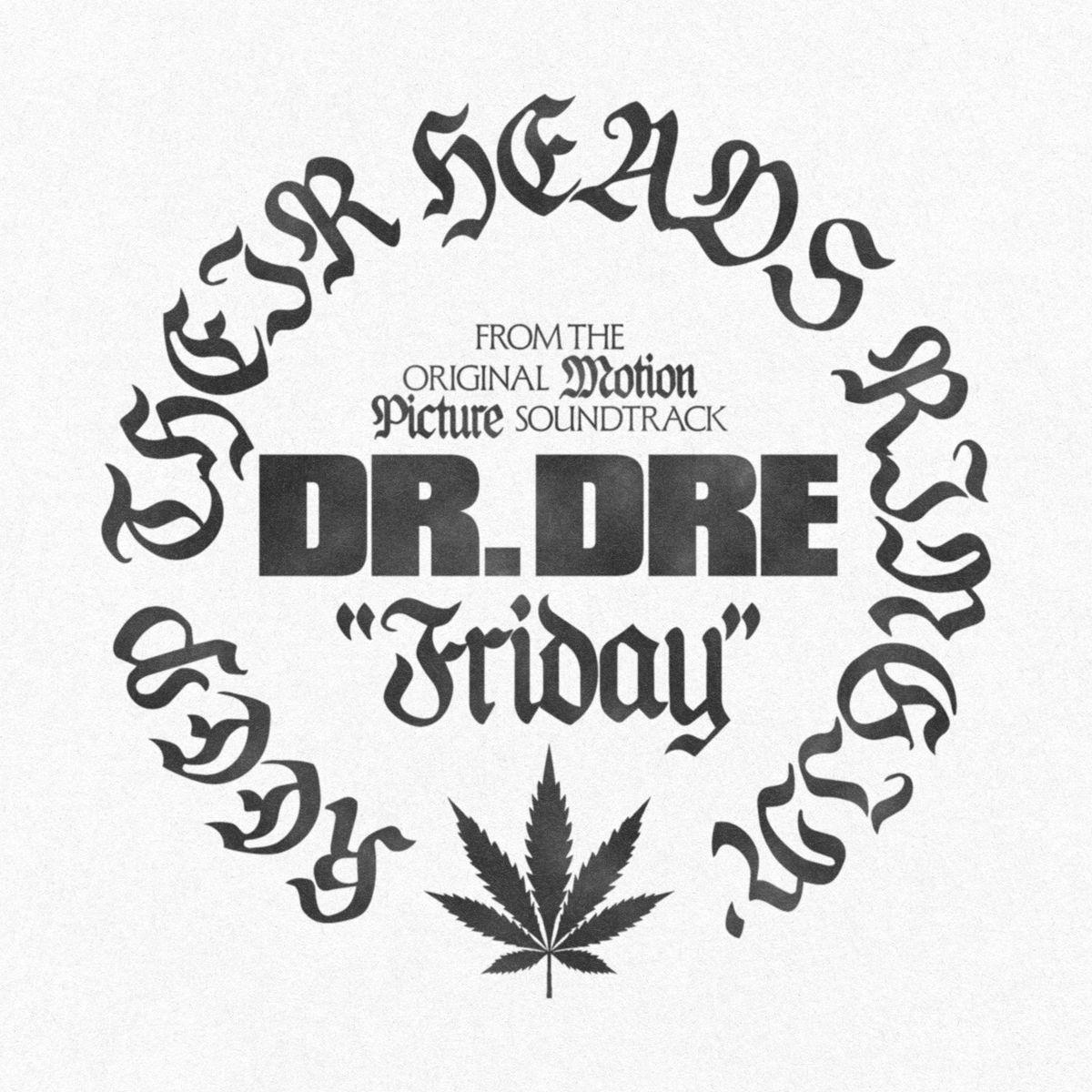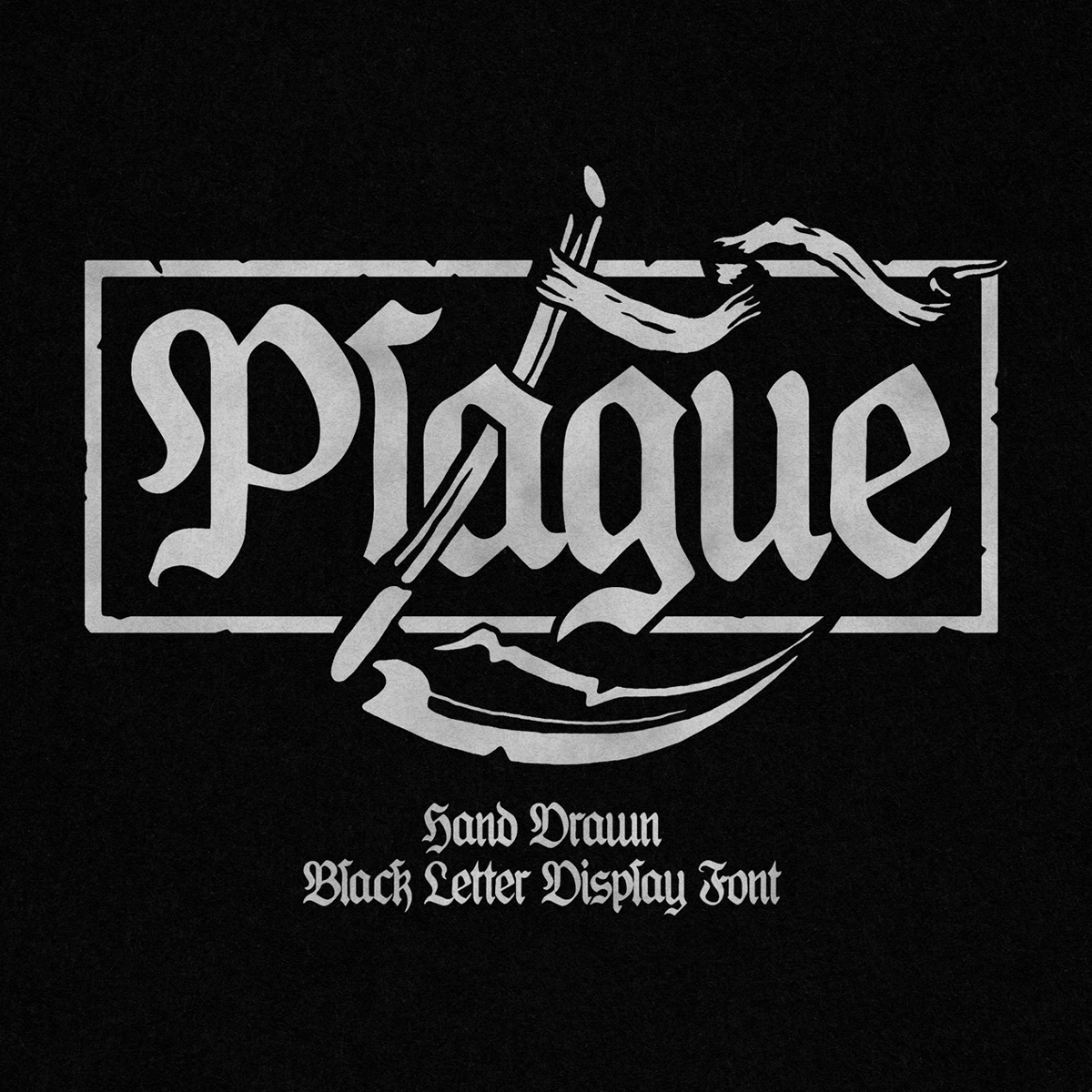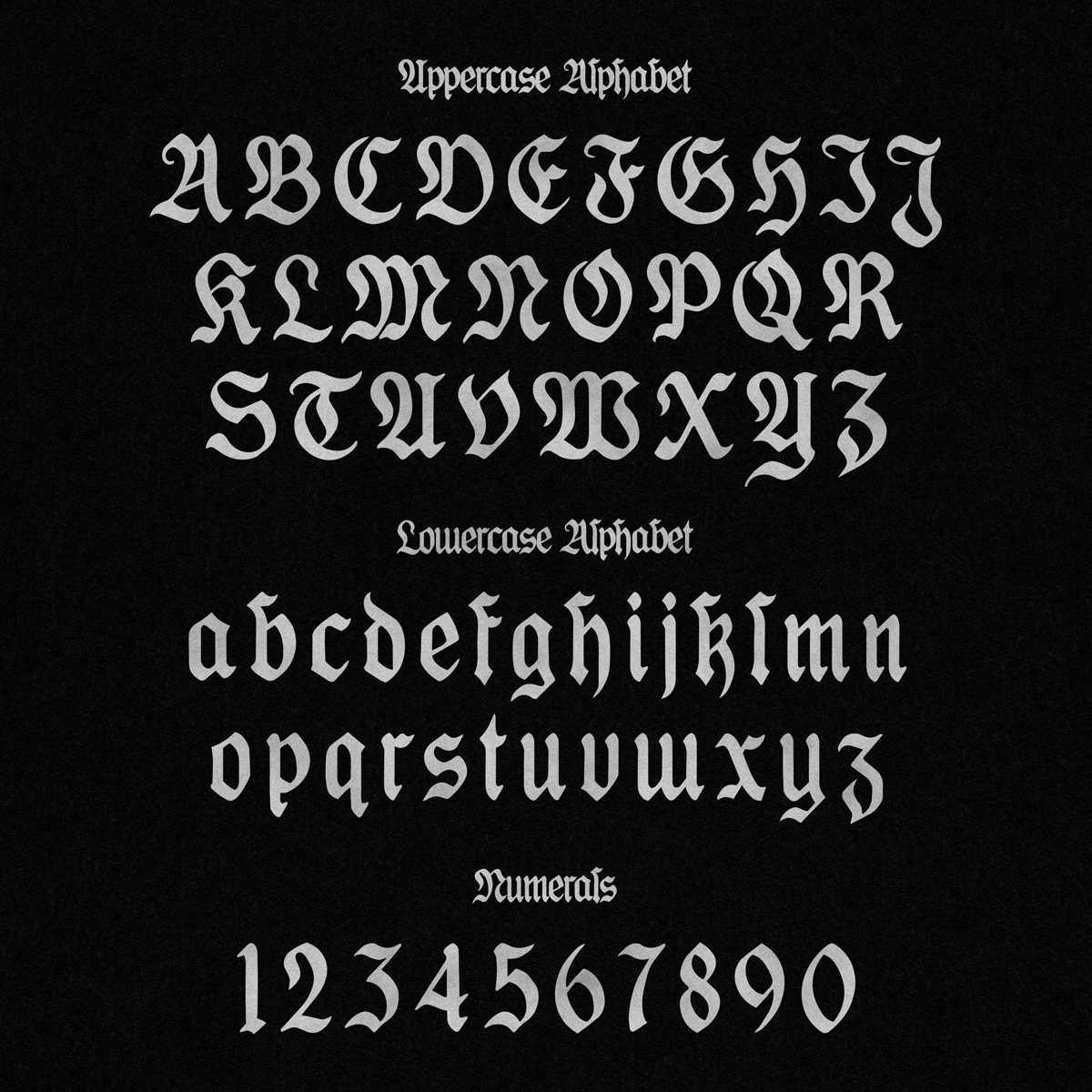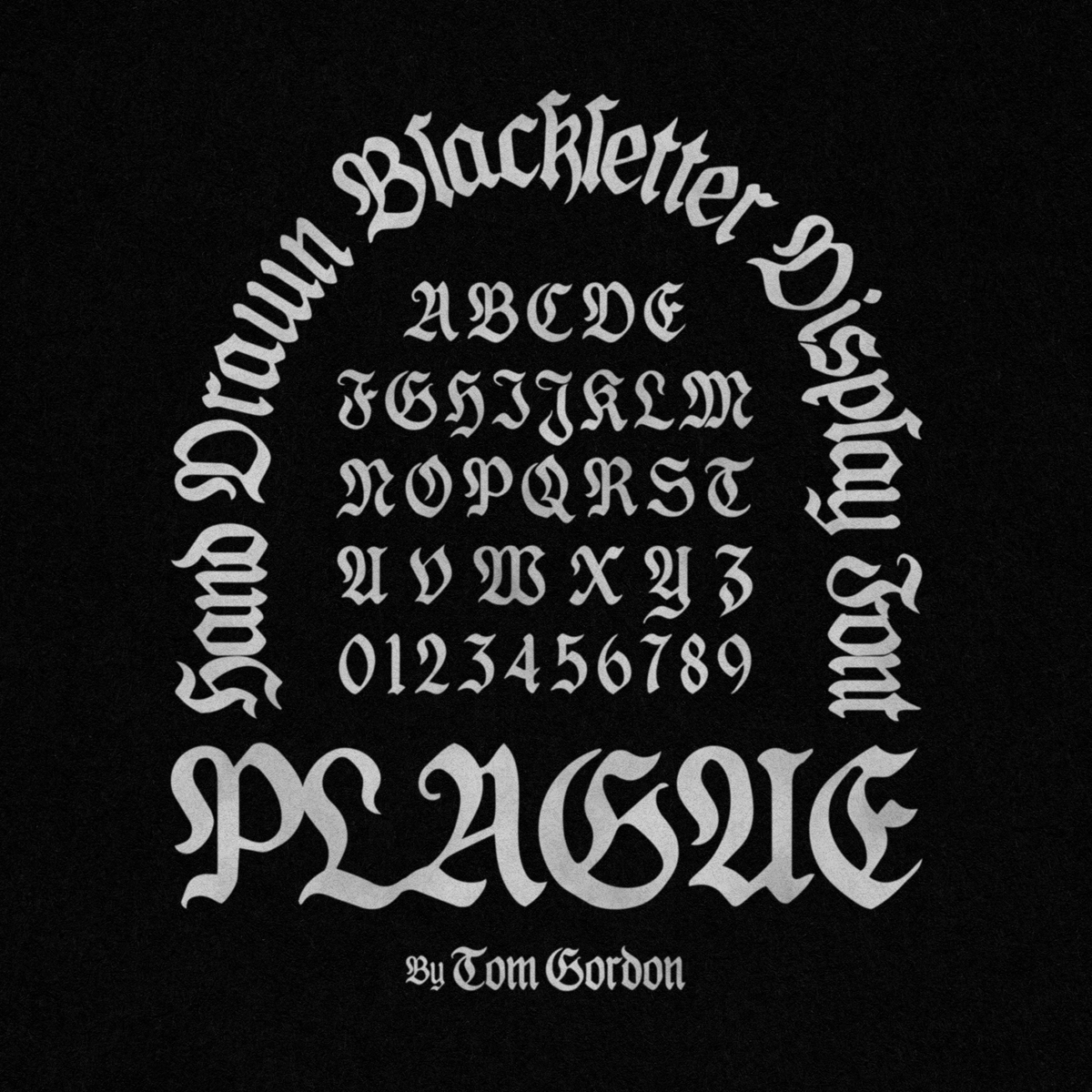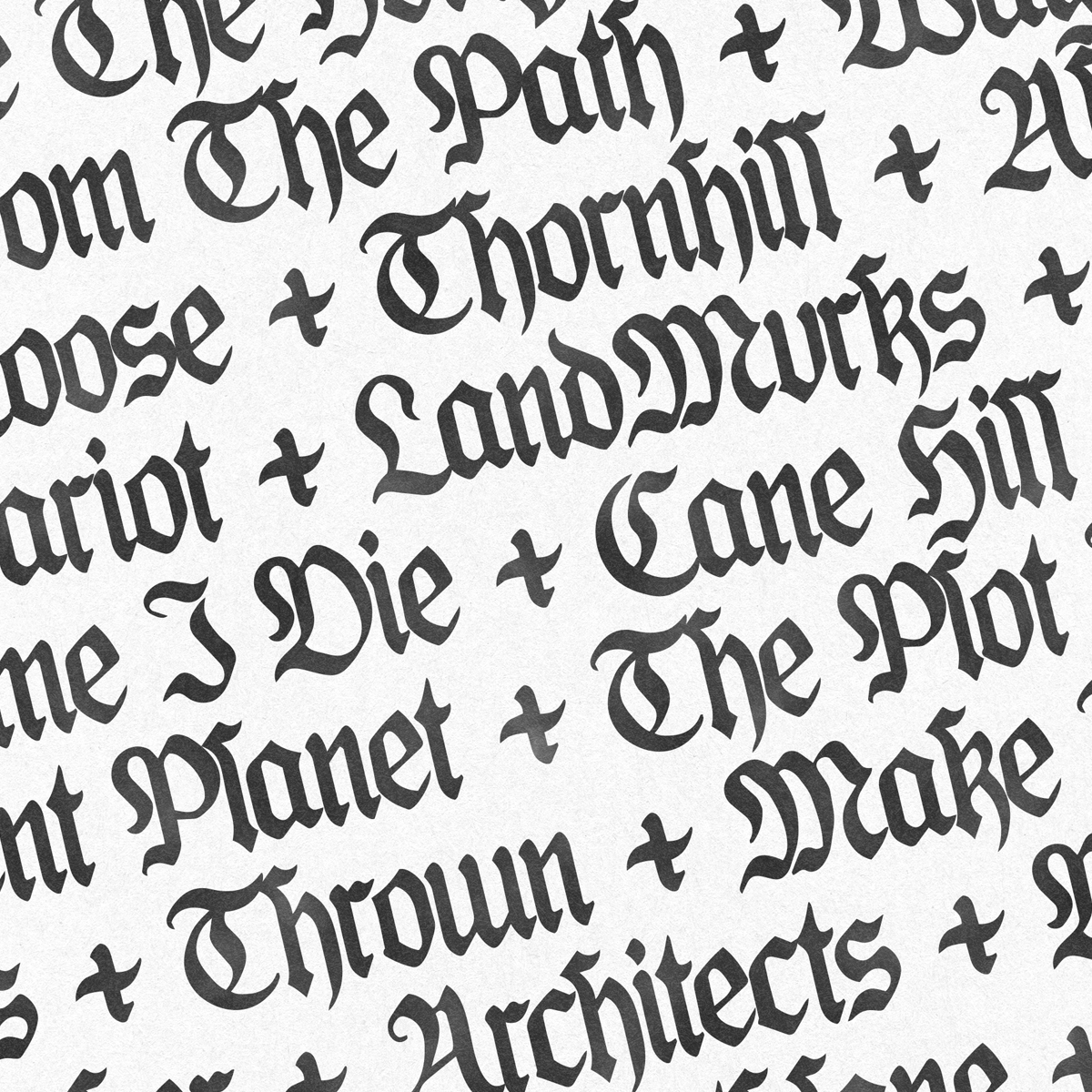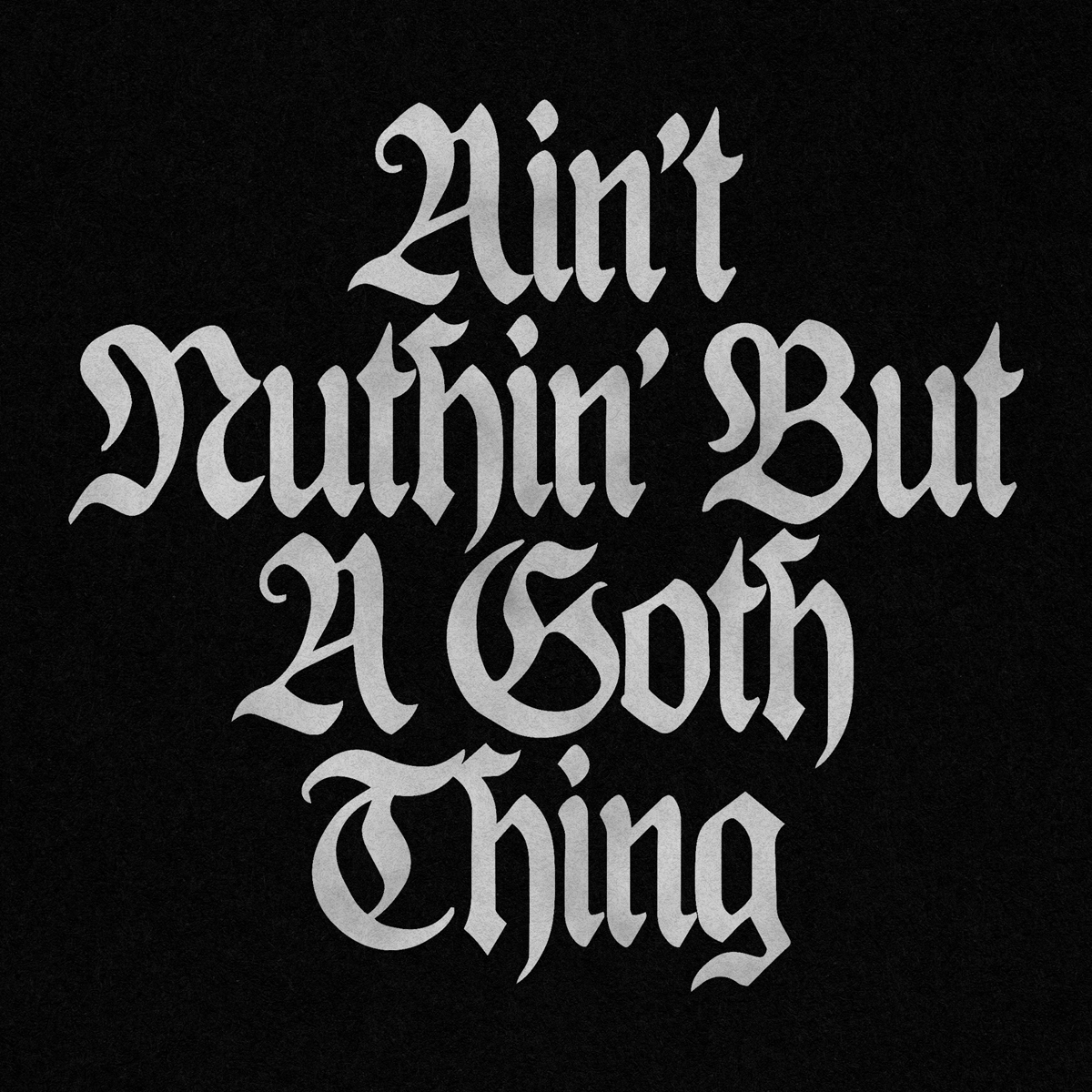
Plague Hand Drawn Blackletter Font
Plague is my brand new hand-drawn blackletter font! Inspired by turn-of-the-century Hip hop and metal graphics it's a perfect for a tonne of applications. A lot of blackletter fonts have a hard time being fully legible, however, I have carefully referenced the most legible styles to make this a stand out banger.
Full Uppercase & Lowercase Alphabet
Numbers and essential symbols